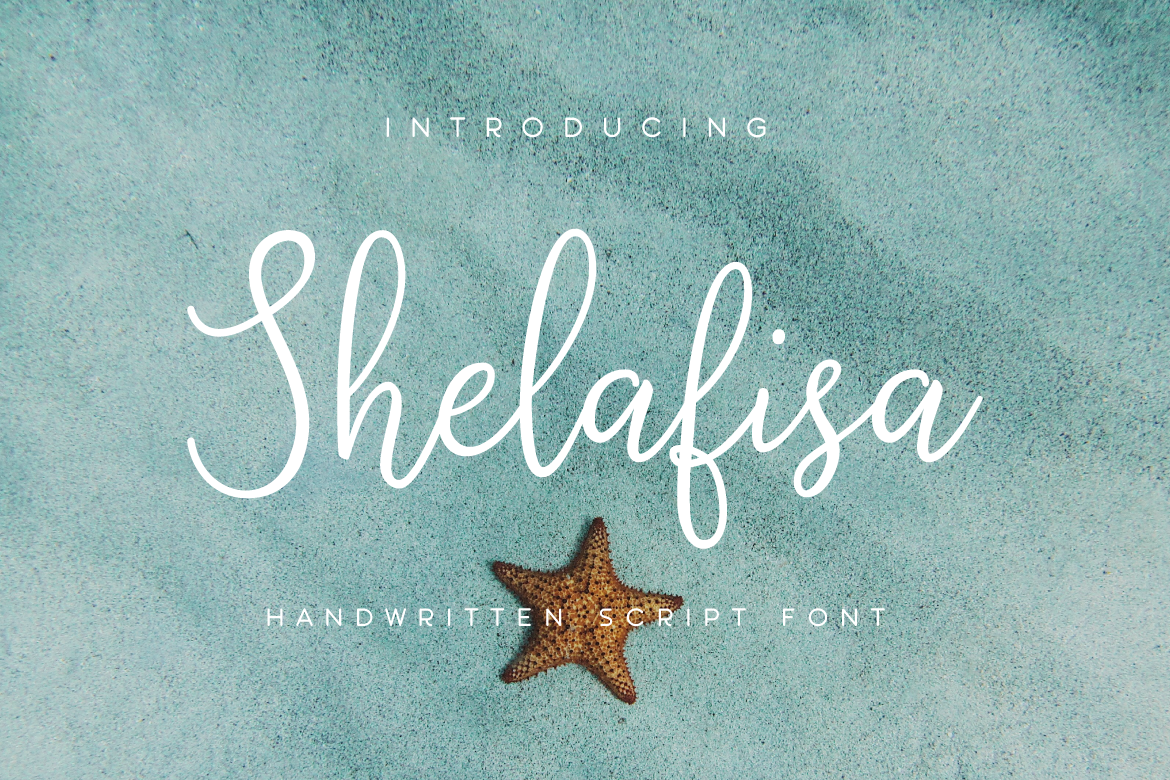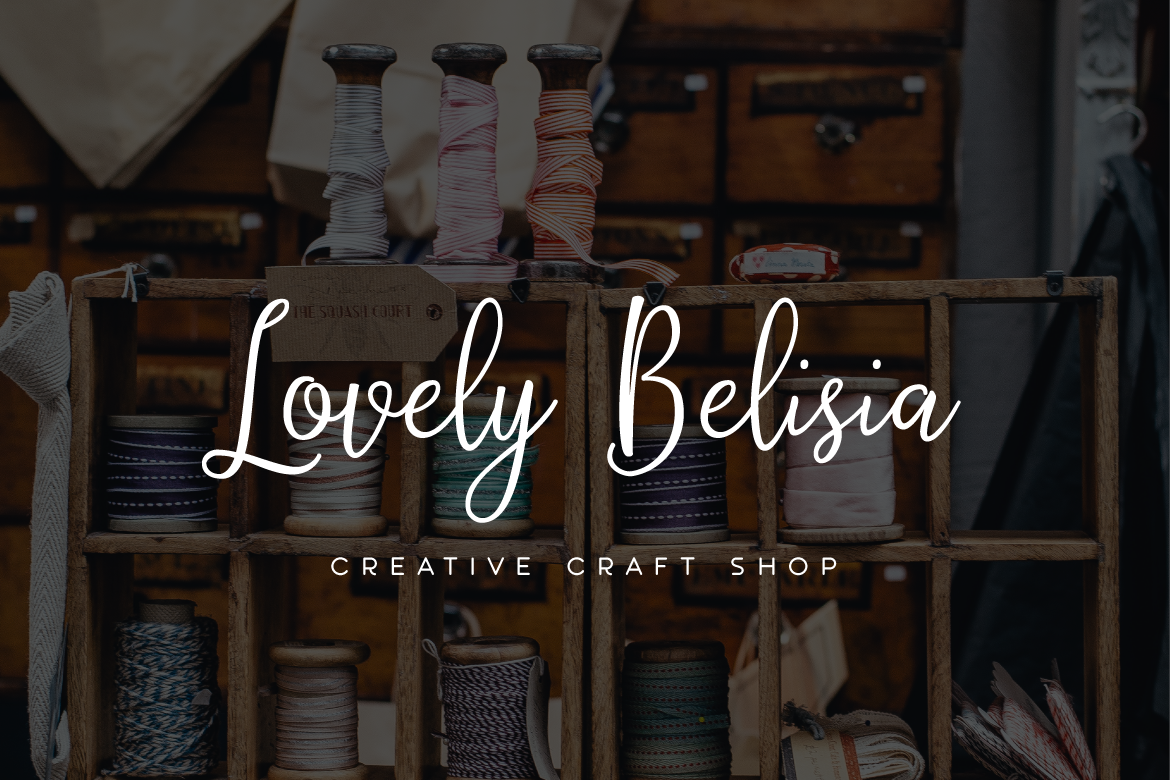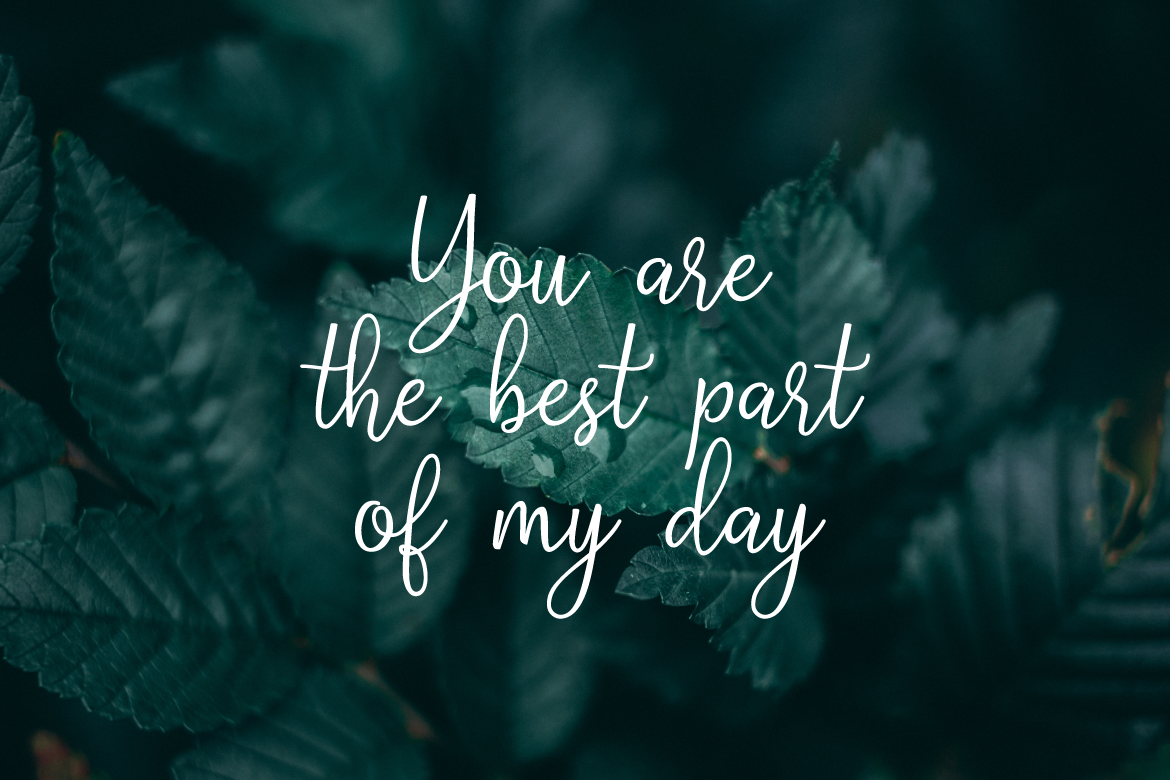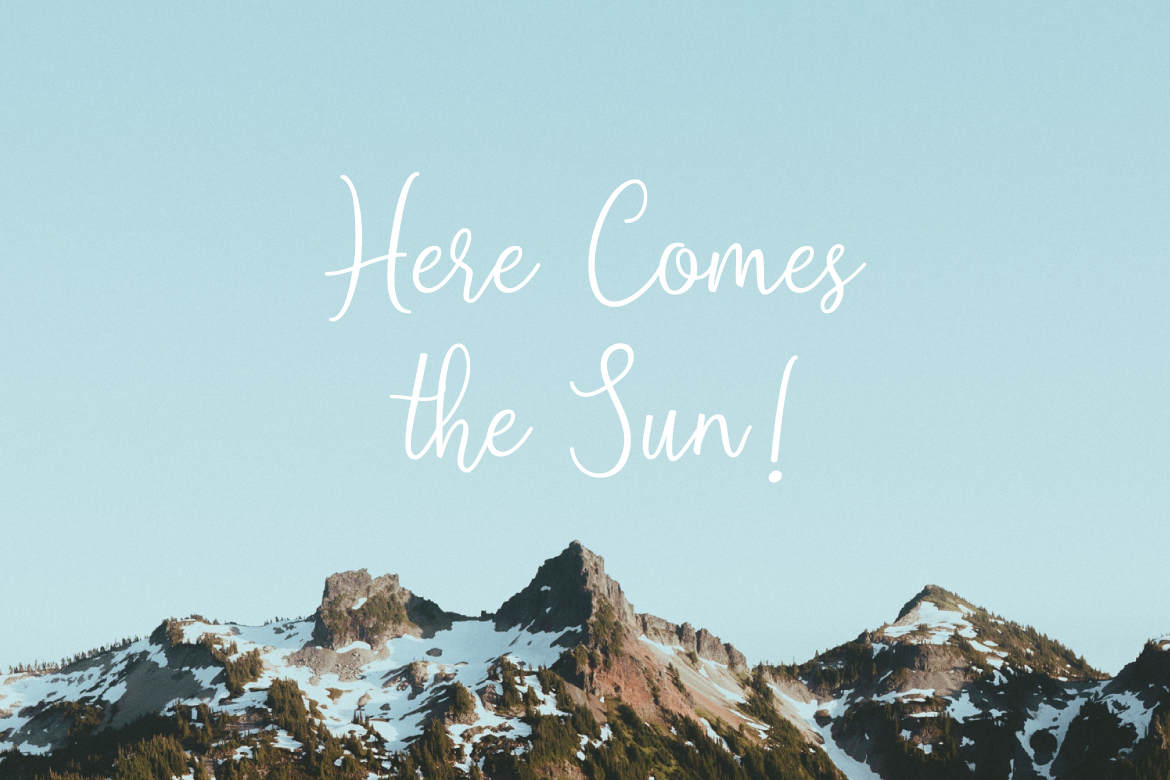
Shelafisa Font
About Shelafisa Font
Shelafisa is an absolutely stunning handwritten script font. This is a beautiful script that dances and flows beautifully, adding movement and dynamism to your designs.